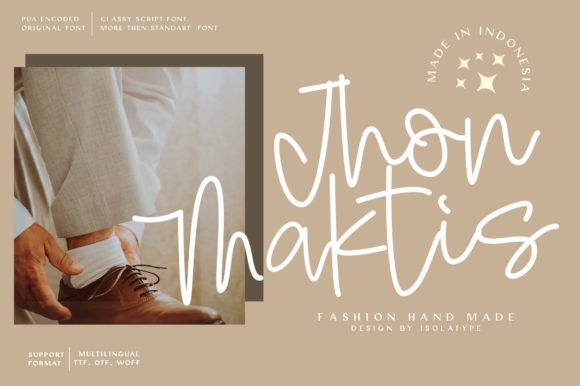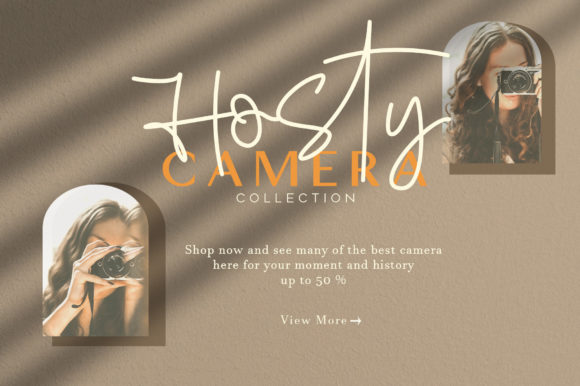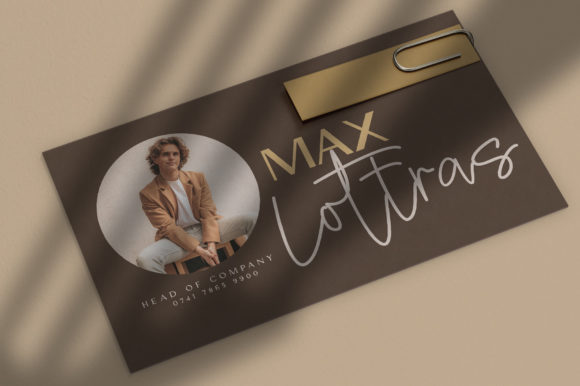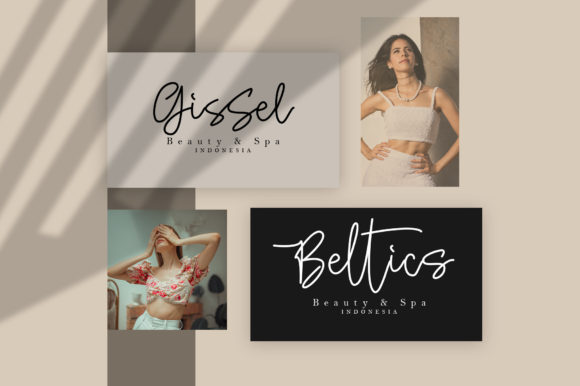
About Qulthum Signature Font
Qulthum Signature is a captivating and delicate handwritten font with flowing, thin lettering. It exudes a trendy and stylish vibe, adding a touch of elegance to every creation. With Qulthum Signature, your designs are elevated to new heights. What’s more, this font is PUA encoded, which means you can easily access all the glyphs and swashes it offers, allowing for effortless customization and embellishment. Whether you’re working on invitations, branding materials, logos, or any other design project, Qulthum Signature provides a versatile and visually appealing option. Embrace this font and let your creativity flourish with its graceful charm and versatility.